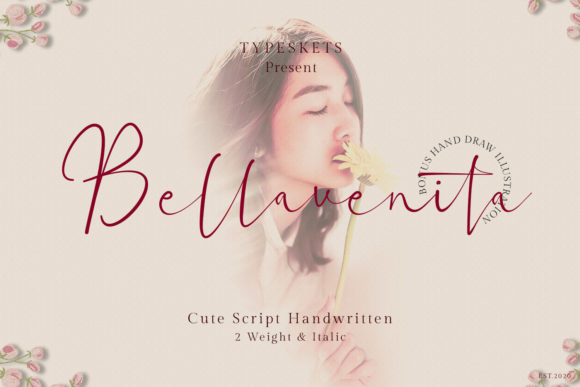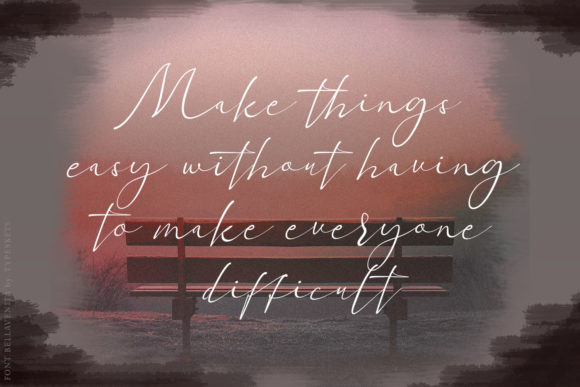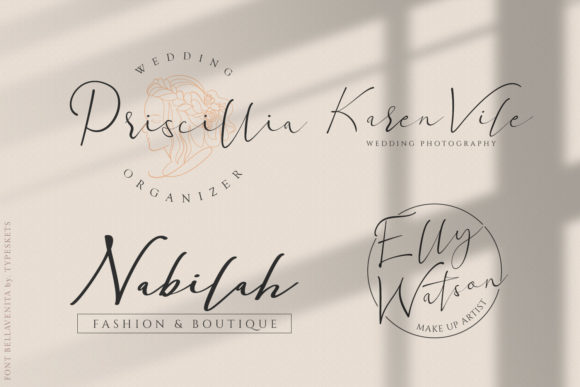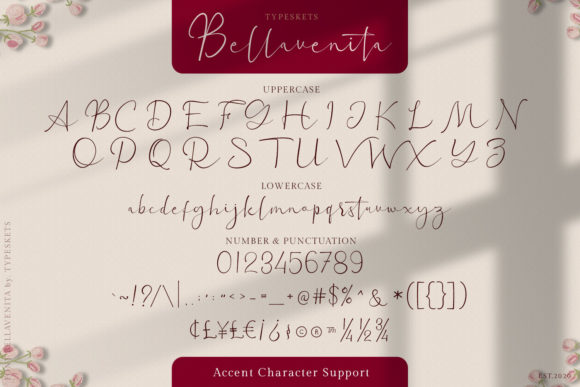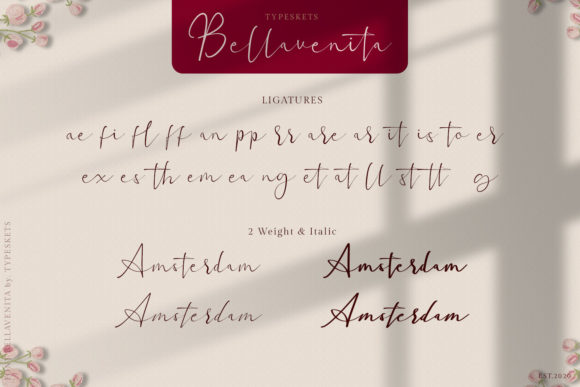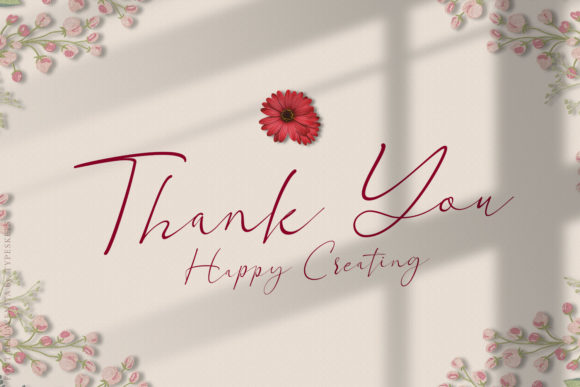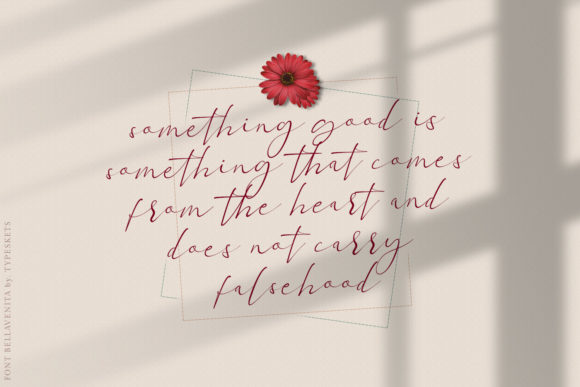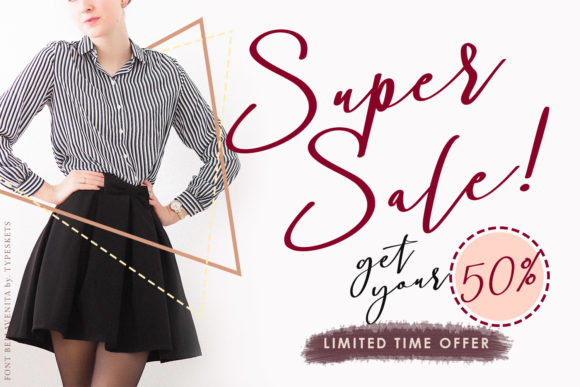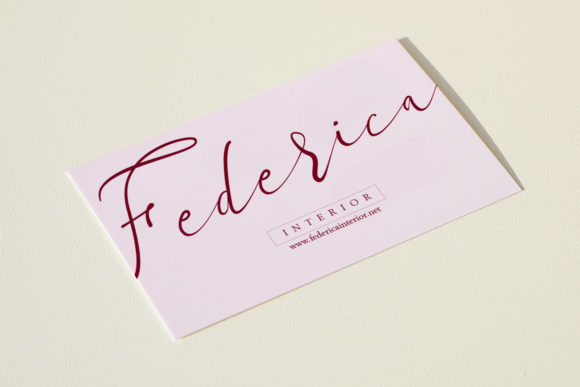
Bellavenita Font
About Bellavenita Font
Bellavenita is a beautiful, cute and natural handwritten font. It features gorgeous swashes and ligatures that make this script incredibly versatile. Whether you’re looking for fonts for Instagram or calligraphy scripts for DIY projects, Bellavenita will turn any creative idea into a true piece of art!